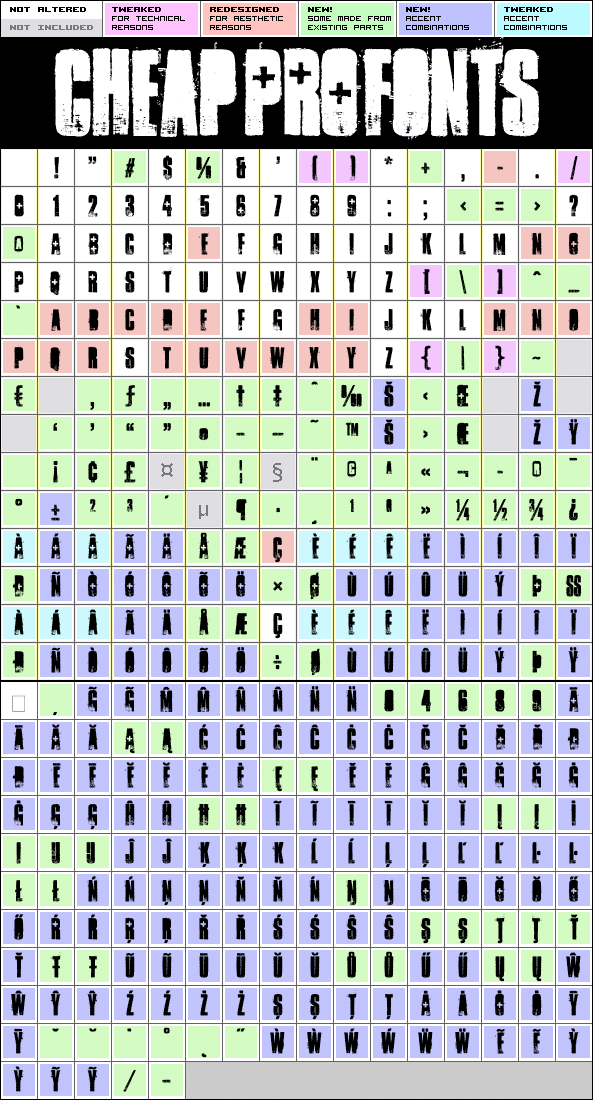
Ambulance Shotgun Pro
Ambulance Shotgun Pro by Guillaume Séguin
379 glyphs!
(94 in original)
341 class kernpairs
= 6181 kerning pairs
(none in original)
Another grungy masterpiece from Guillaume - this one with a woodprint touch. I have made the lowercase letters different from the uppercase by removing the cross-shaped counters and flipping where possible. Even the numbers have solid variants - available as OpenType "Stylistic Alts". Enjoy the new flexible possibilities! :)
Ambulance Shotgun Pro is a professionally reworked font that contains an extended character set for setting text in 65 languages requiring more than the basic A-Z!